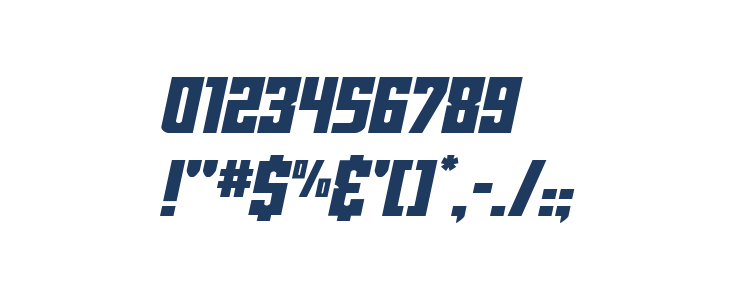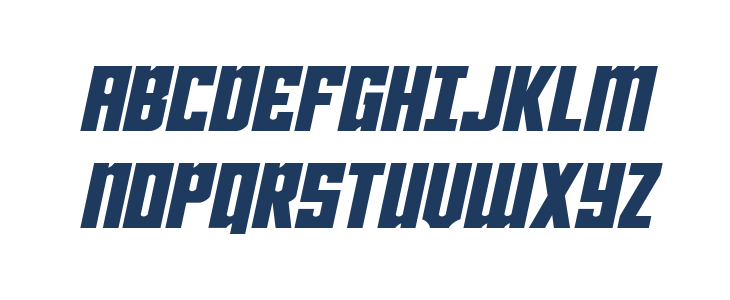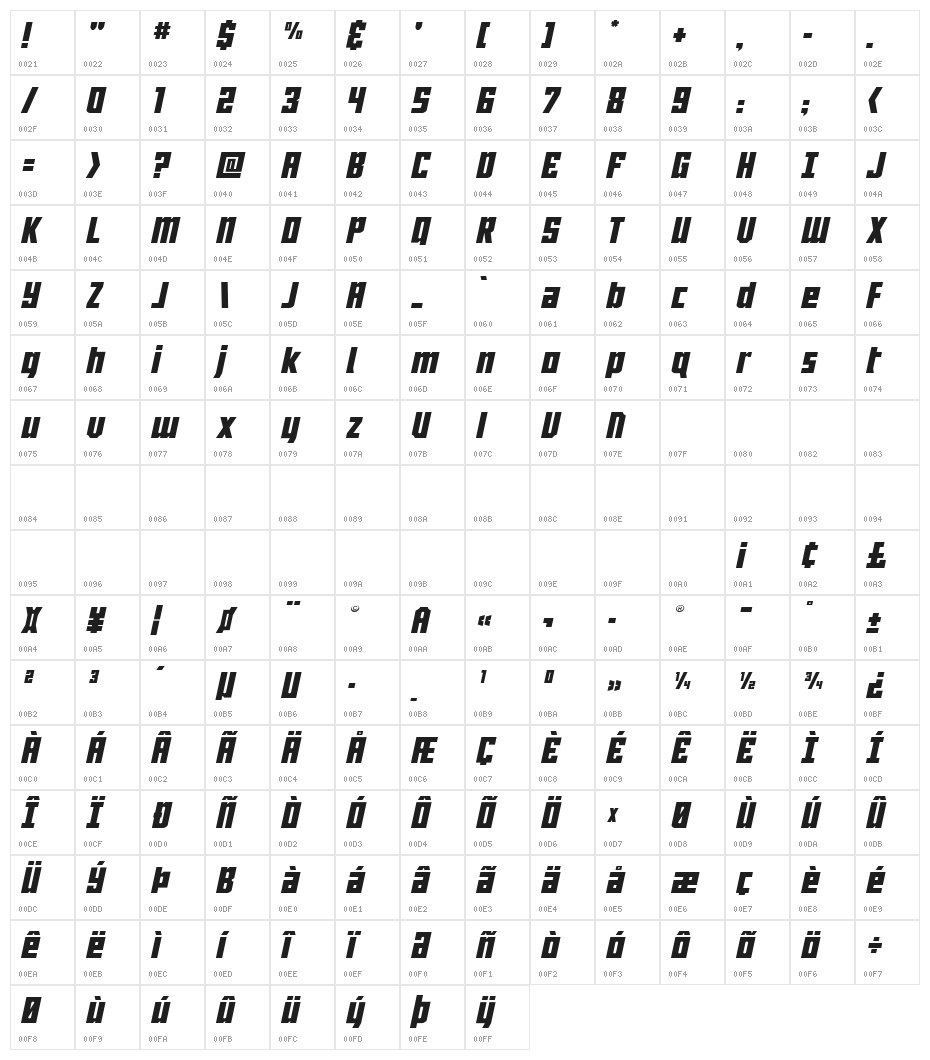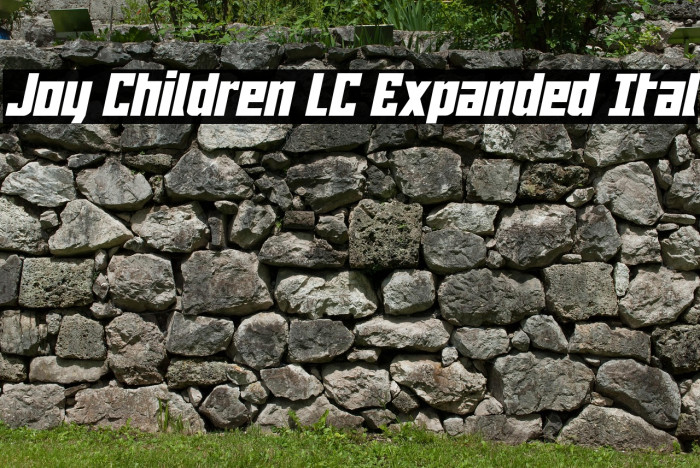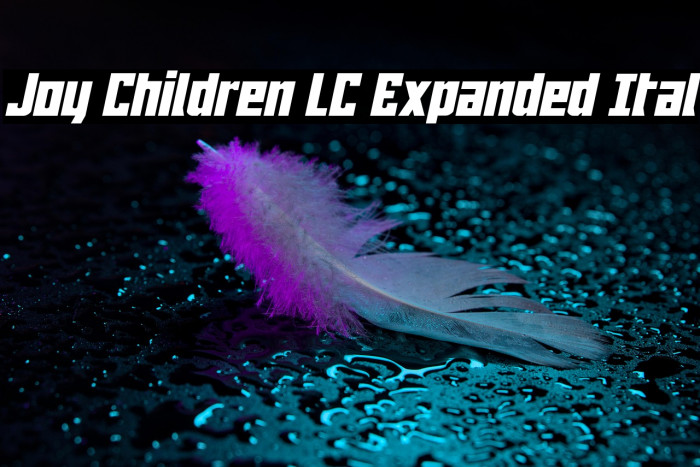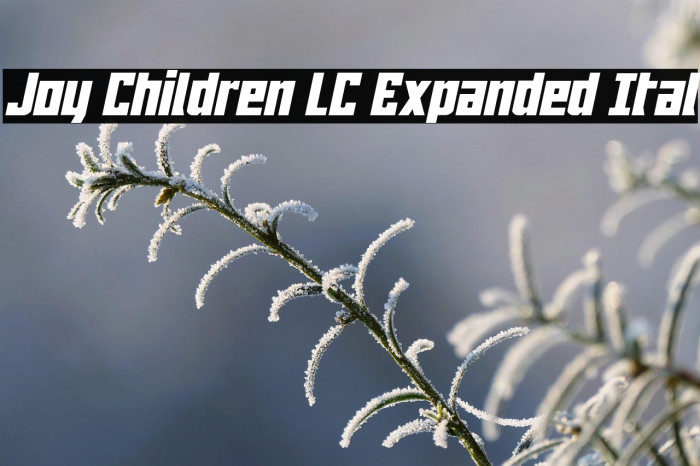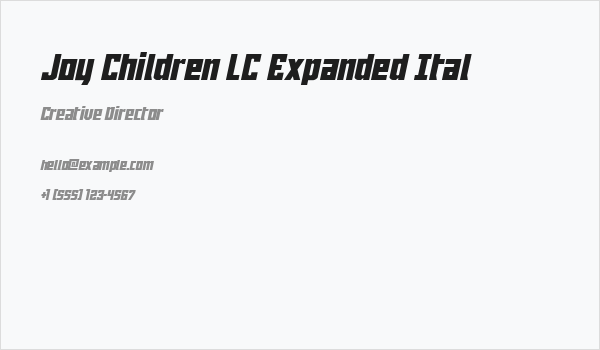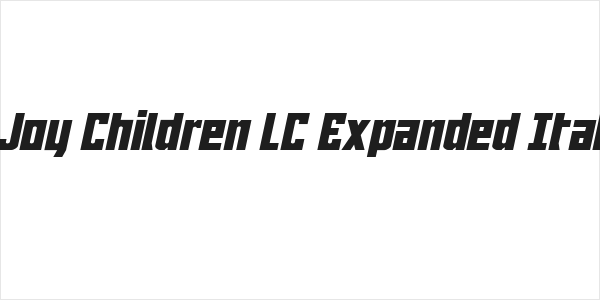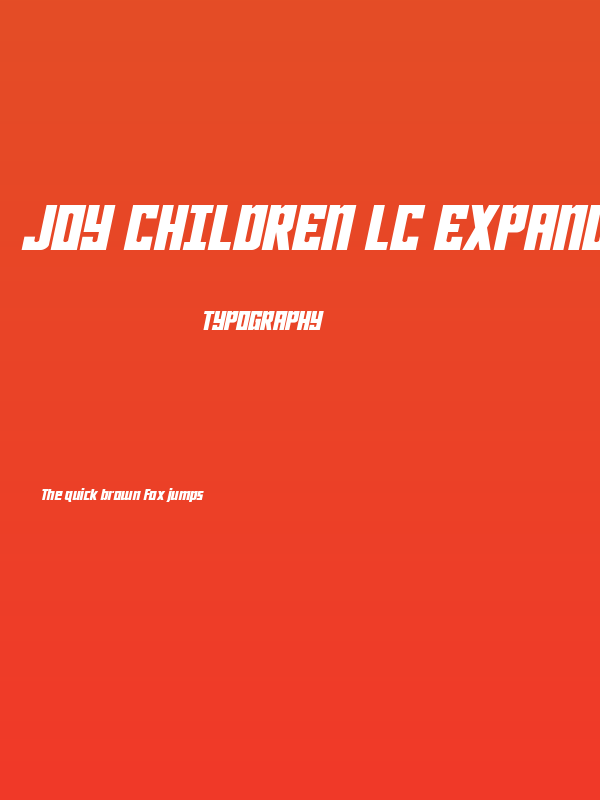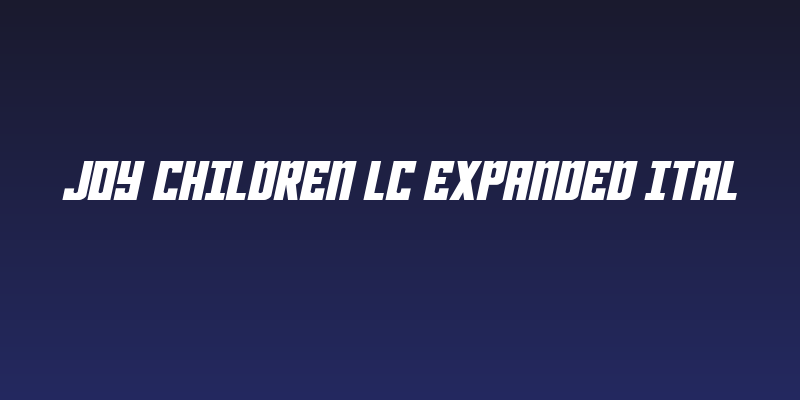
Joy Children LC Expanded Ital Font
Joy Children LC Expanded Ital Description
Bold, italic, geometric sans-serif font with a strong, dynamic appearance. The characters are angular with a consistent stroke width, giving a modern and energetic feel.
| Overall Style | Modern, Geometric, Dynamic |
| Use Case | Headlines, Logos, Sports branding, Promotional materials |